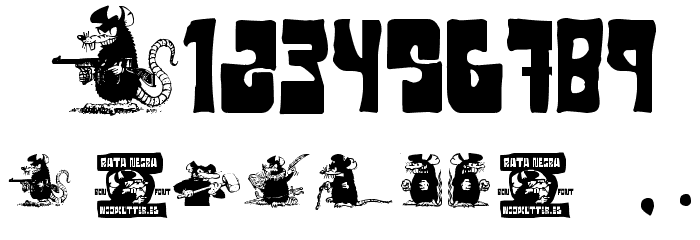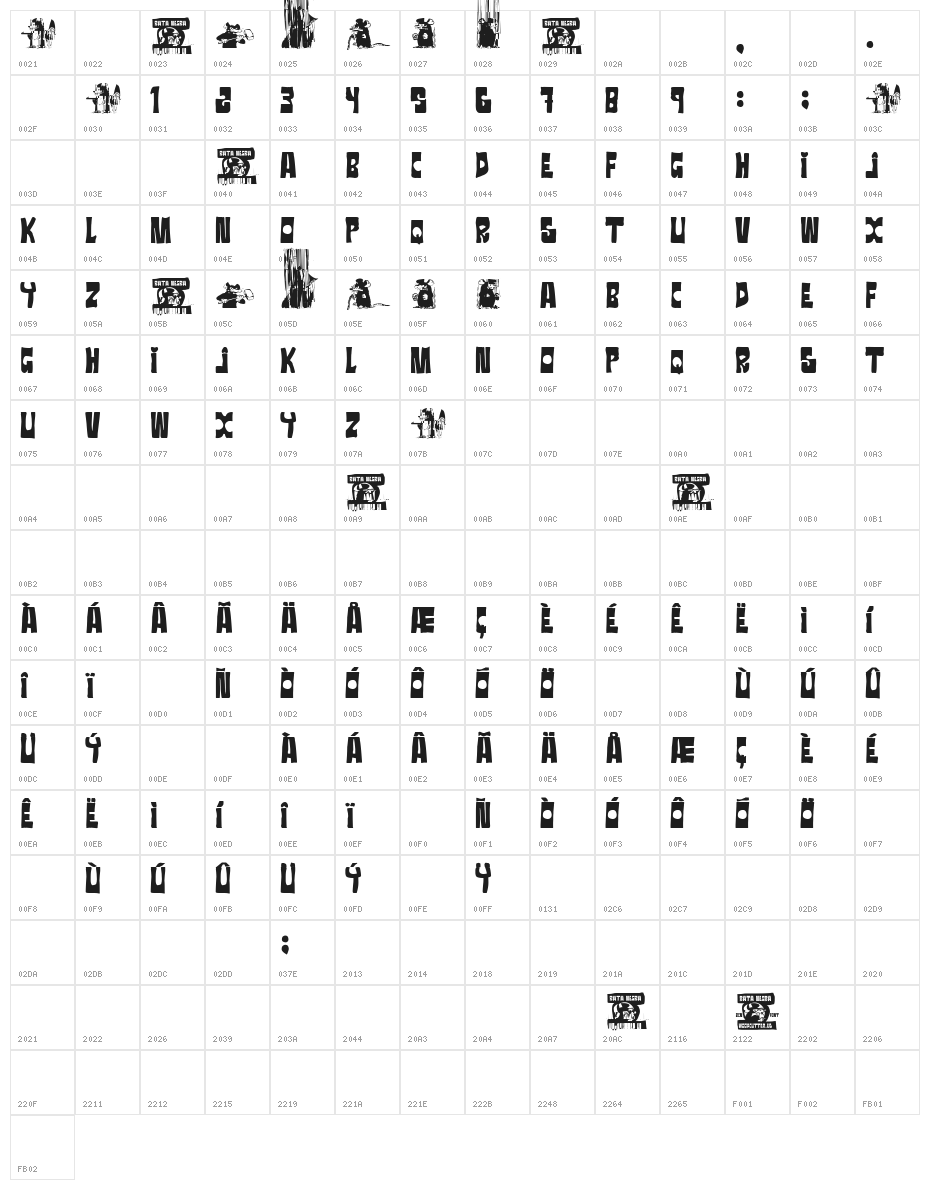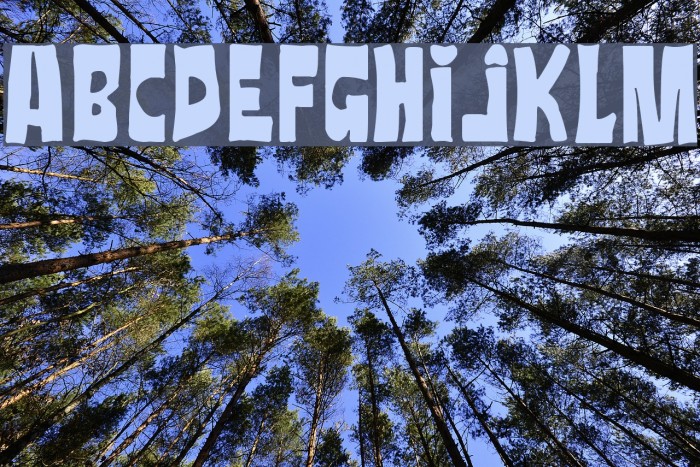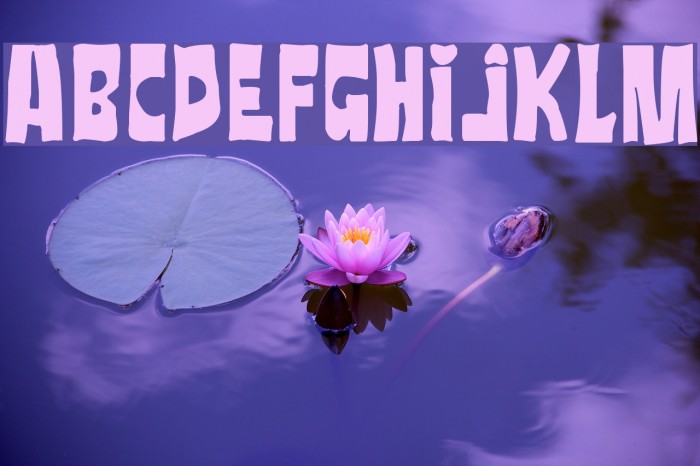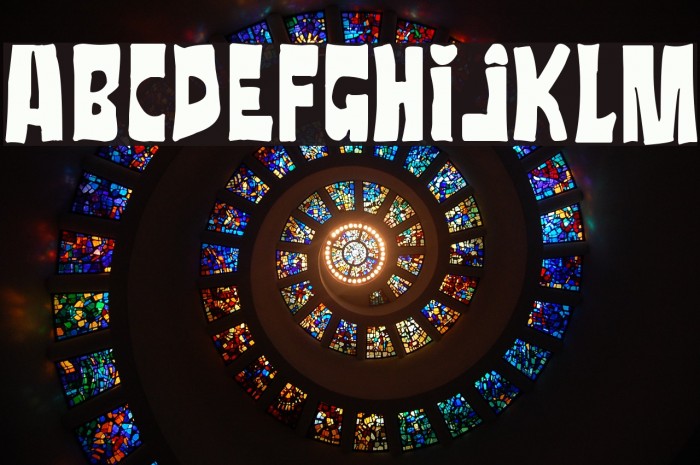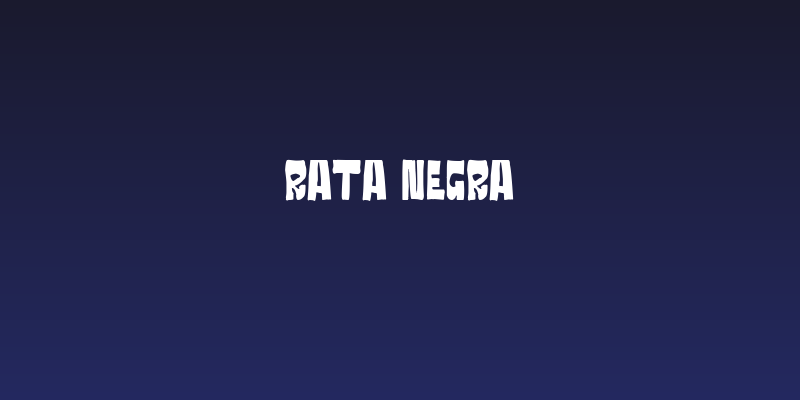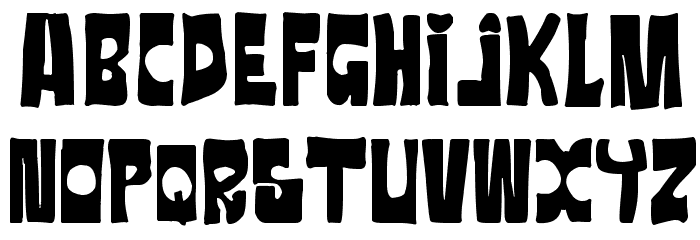
Rata Negra Font
Rata Negra Description
This font features a bold and playful design with a hand-drawn aesthetic. The characters are thick and irregular, giving them a unique and quirky appearance. The uppercase and lowercase letters maintain a consistent style, with exaggerated curves and angles that add to the font's whimsical charm. The numbers and special characters follow the same design principles, ensuring a cohesive look across all elements. This font is ideal for projects that require a fun and eye-catching typeface, such as posters, album covers, or children's book titles.
Proposed ProjectsIdeal for posters, album covers, children's books, and other creative projects.